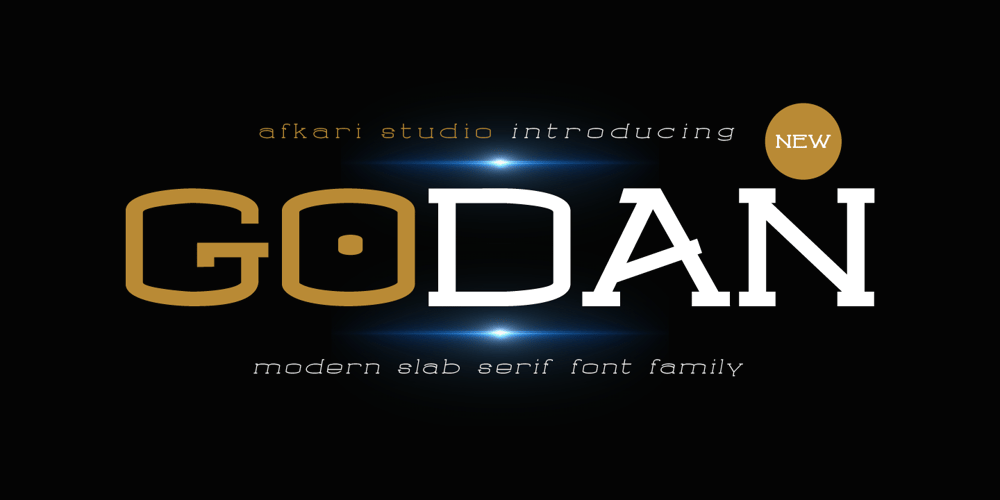
Godan Font Family was designed by Musthafa Kamal Emje and published by Afkari Studio. Godan contains 10 styles and family package options. Godan Modern Slab Serif Font FamilyGodan is A modern Slab Serif font family with minimal, modern,and futuristic style. This font works perfect for you who needs a typeface for headline, logotype, apparel, branding, packaging, advertising, branding, packaging, advertising etc. This typeface is comes in uppercase, lowercase, punctuation, symbols, numerals, alternates, and support multilingual.Features;- 10 styles; Godan Thin, Godan Thin Italic, Godan Light, Godan Light Italic, Godan Regular, Godan Italic, Godan Bold, Godan Bold Italic, Godan Black, Godan Black Italic- Works on PC & Mac- Simple installations- Accessible in the Adobe Illustrator, Adobe Photoshop, Adobe InDesign, even work on Microsoft Word- Fully accessible without additional design software.- Mültîlíñgúãl Sùppört for; ä ö ü Ä Ö Ü ß ¿ ¡Hope you enjoy with our font and this font usefull font your projets!